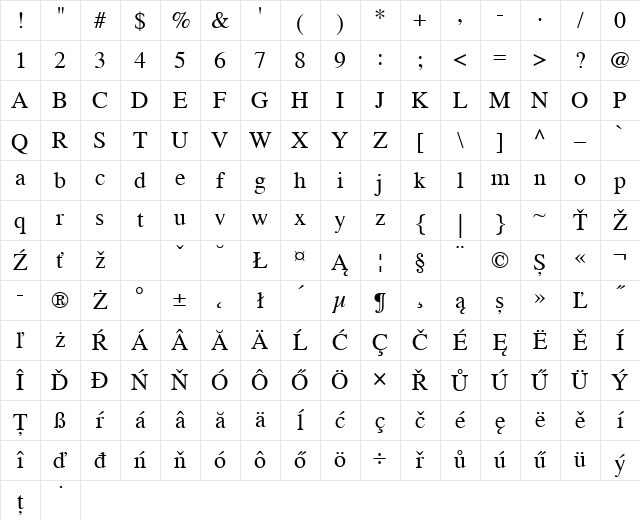
Times CE Regular
Times CE Family
Design Context for Times CE
Times CE is a composed and adaptable typeface that performs quietly and consistently across a wide range of design contexts.
Pro Tip: Use Times CE in both headline and body roles to test its range before committing to a single application.